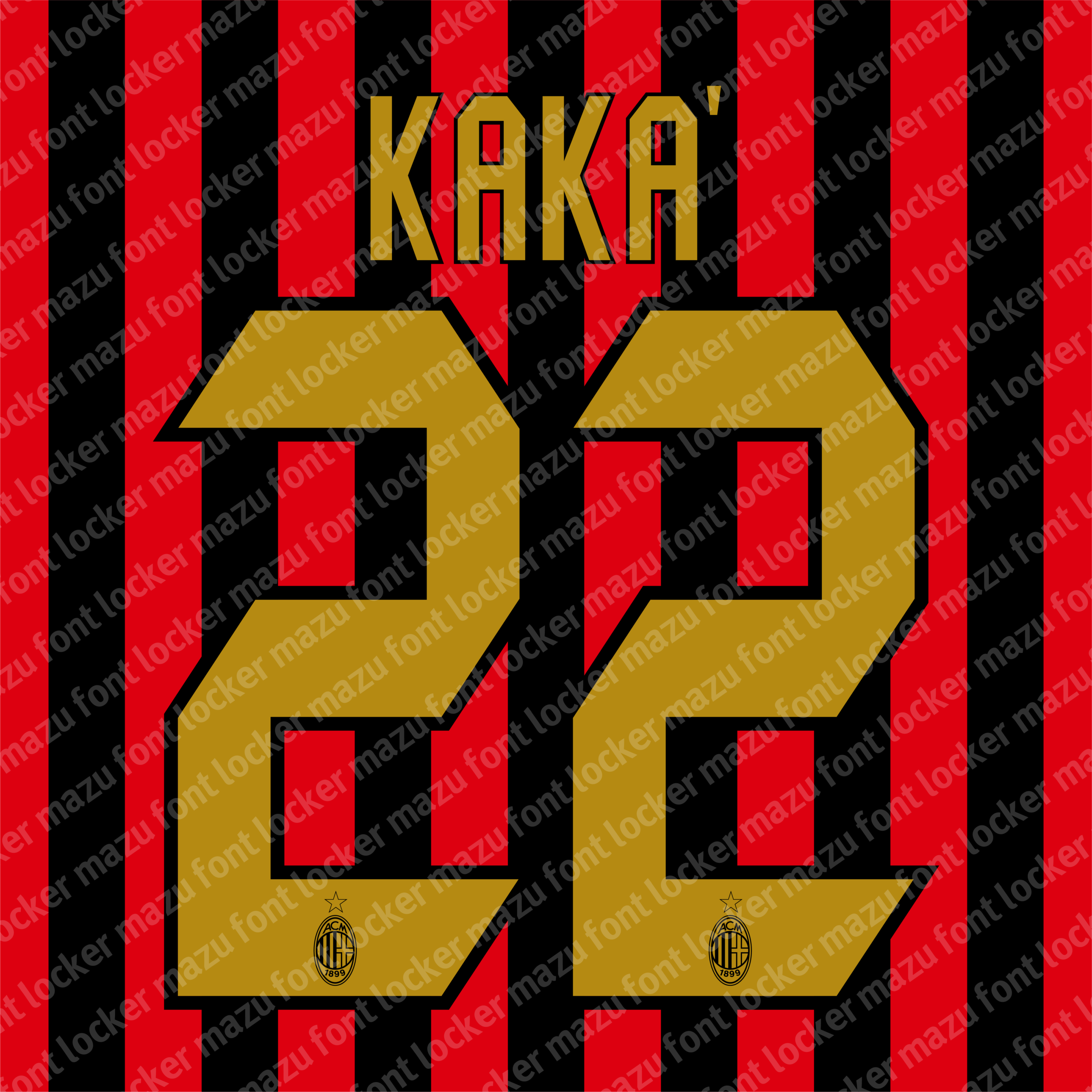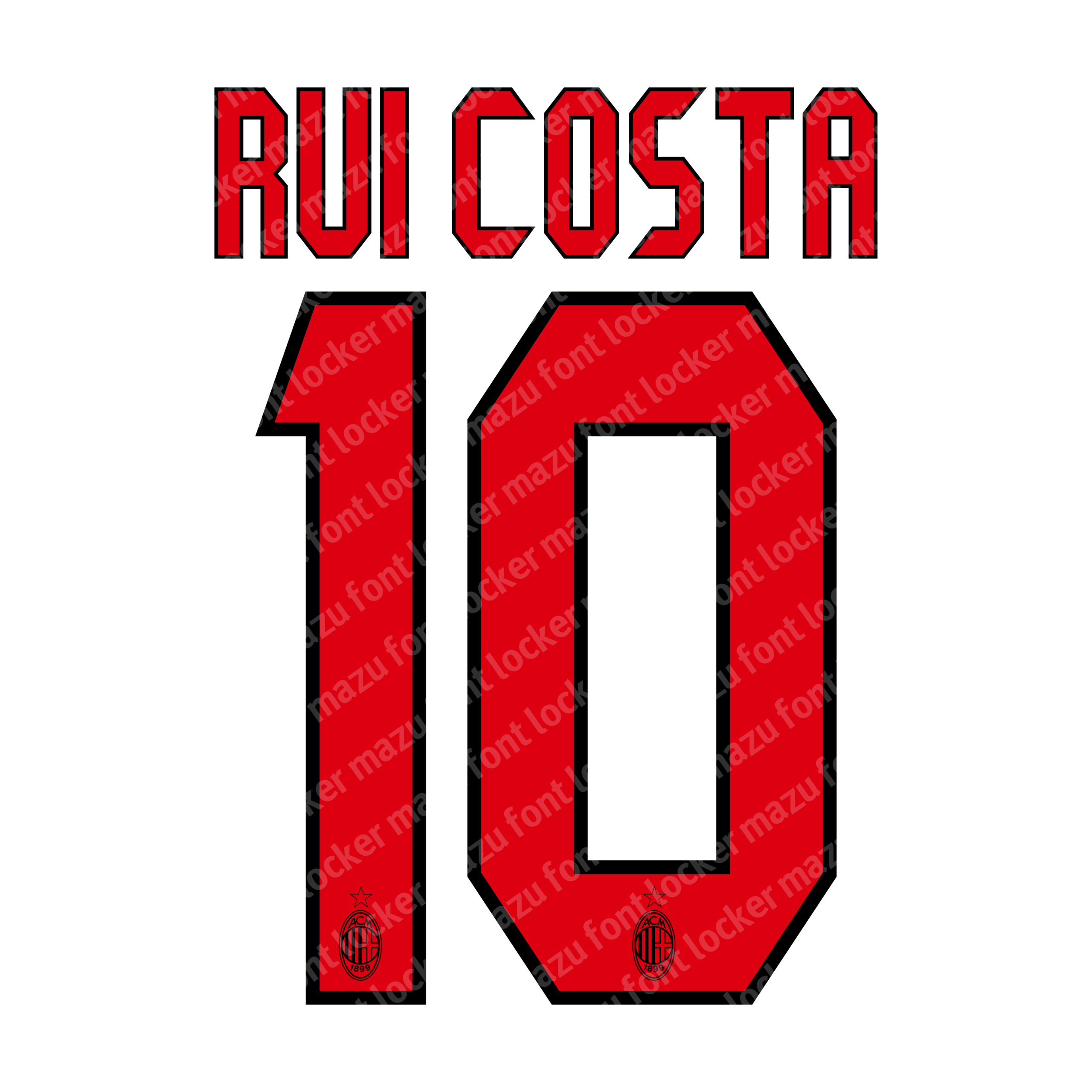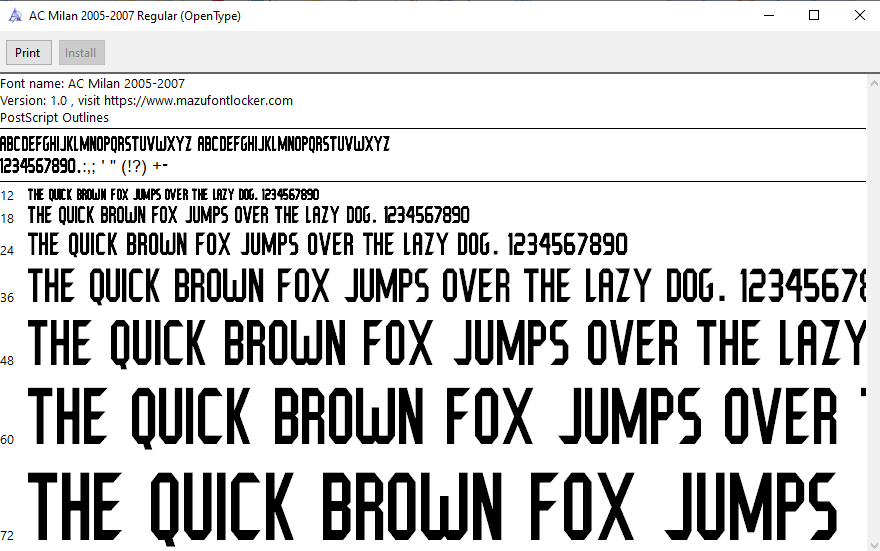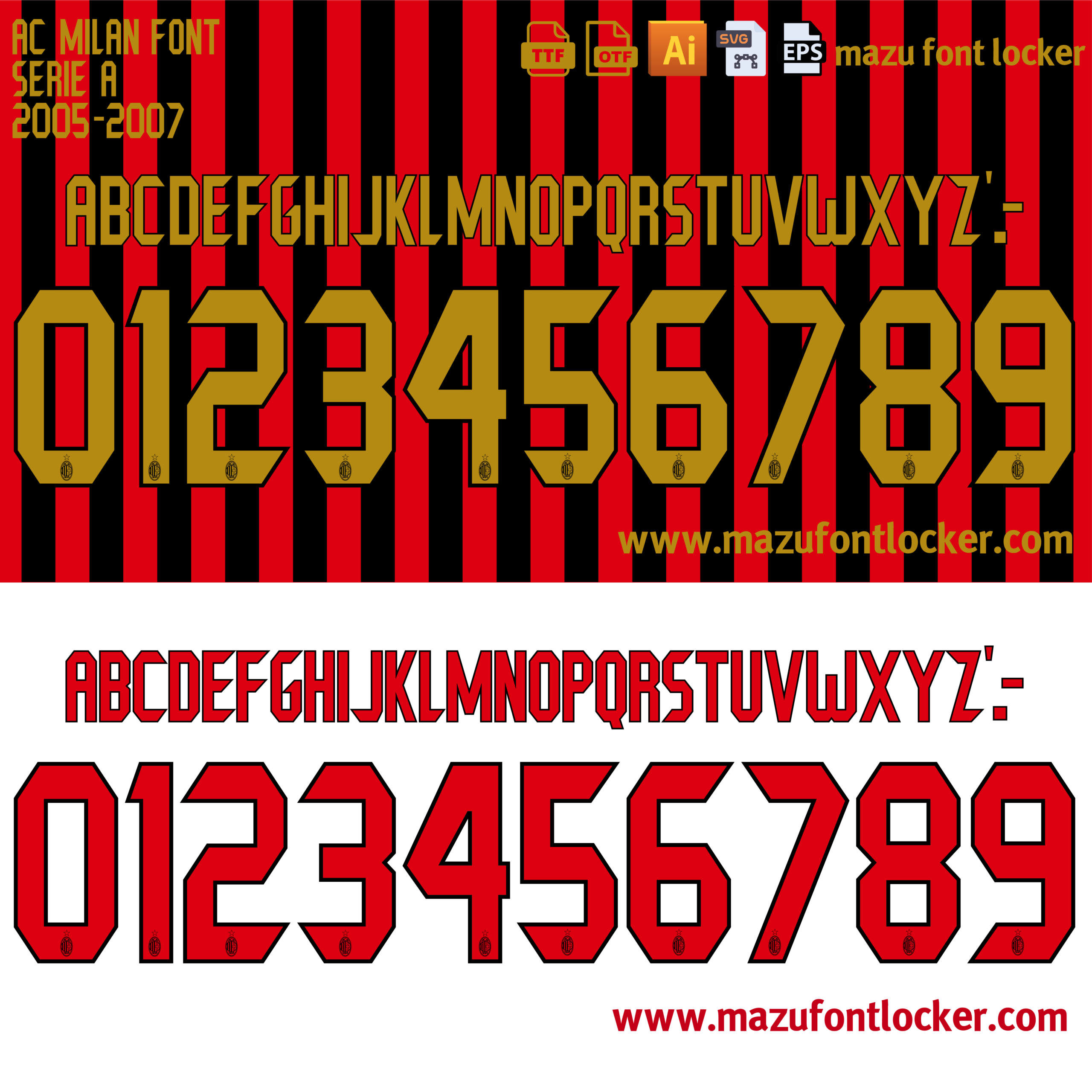
AC Milan 2005-2007 Home & Away Font Vector (Digital Download)
AC Milan 2005-2007 font, names and numbers, fully editable VECTOR file for customisation.
Complete design with the AC Milan 2005-2007 numbering and lettering for the Serie A Match .